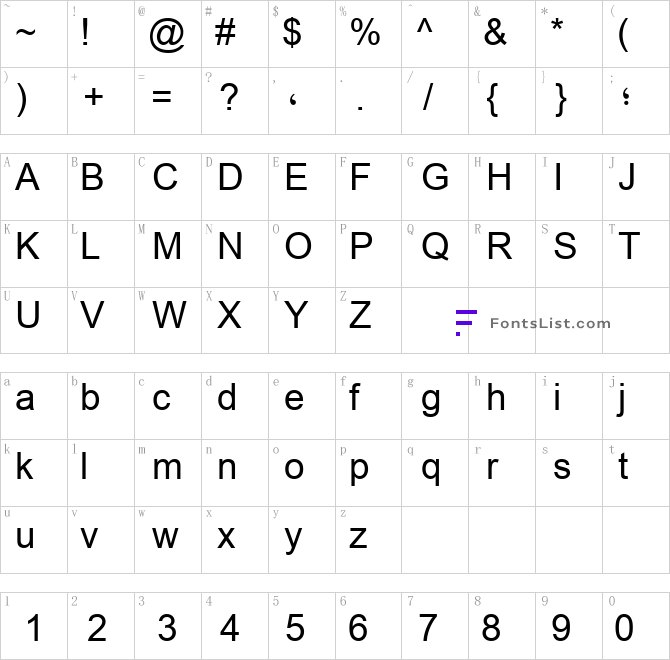
- Font Name:Abc (Glx) Aesliya
Abc-Glx-Aesliya-Abcglx-Aesliya.ttf is a very beautiful artistic font, Abc-Glx-Aesliya-Abcglx-Aesliya.ttf is widely used in the design and printing of various books and pictures,Abc-Glx-Aesliya-Abcglx-Aesliya.ttf has a strong visual impact,Abc-Glx-Aesliya-Abcglx-Aesliya.ttf is a commonly used font in newspapers, magazines and books, and is used in posters, e-commerce Poster design, store design, logo design, font design and other fields.Abc-Glx-Aesliya-Abcglx-Aesliya.